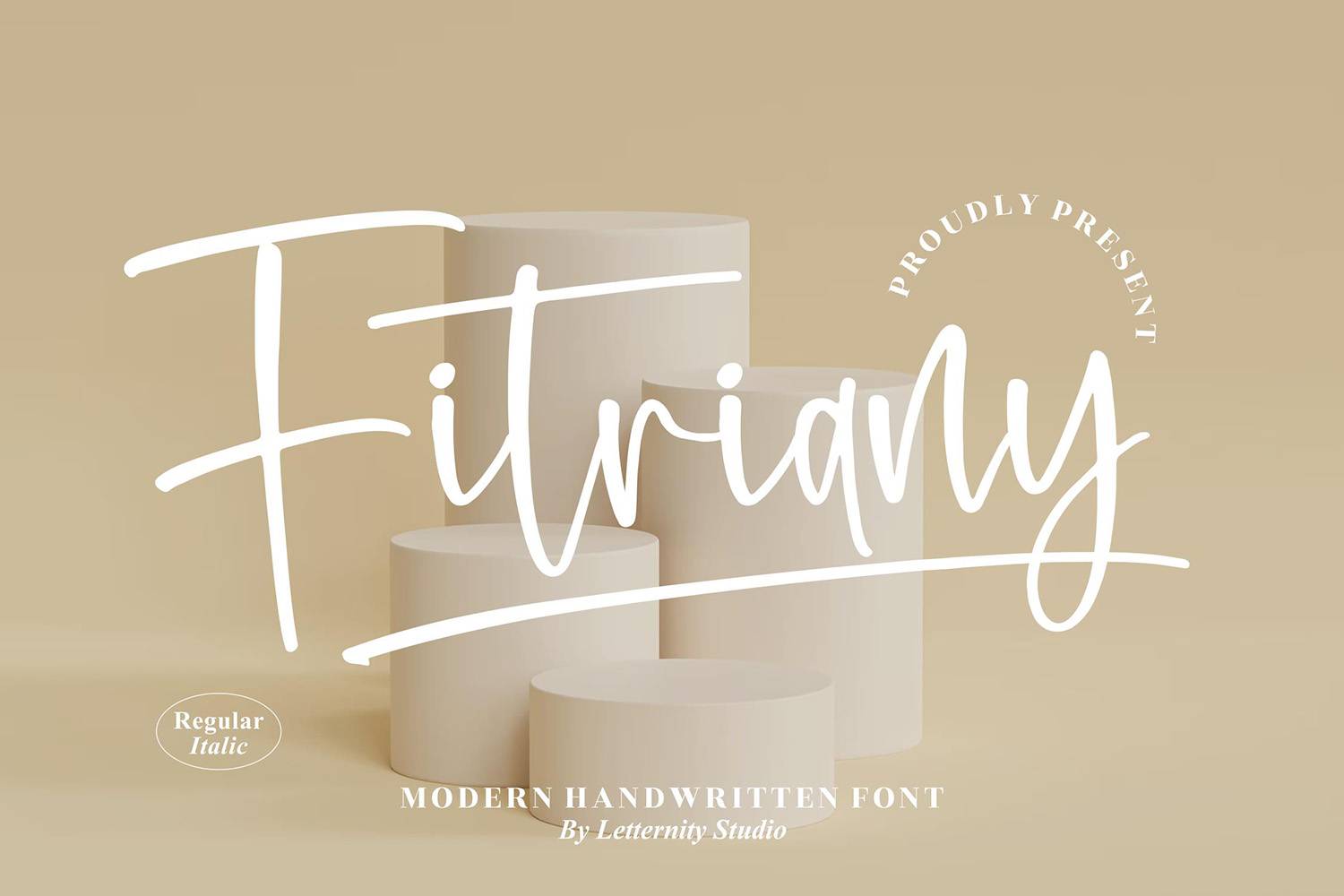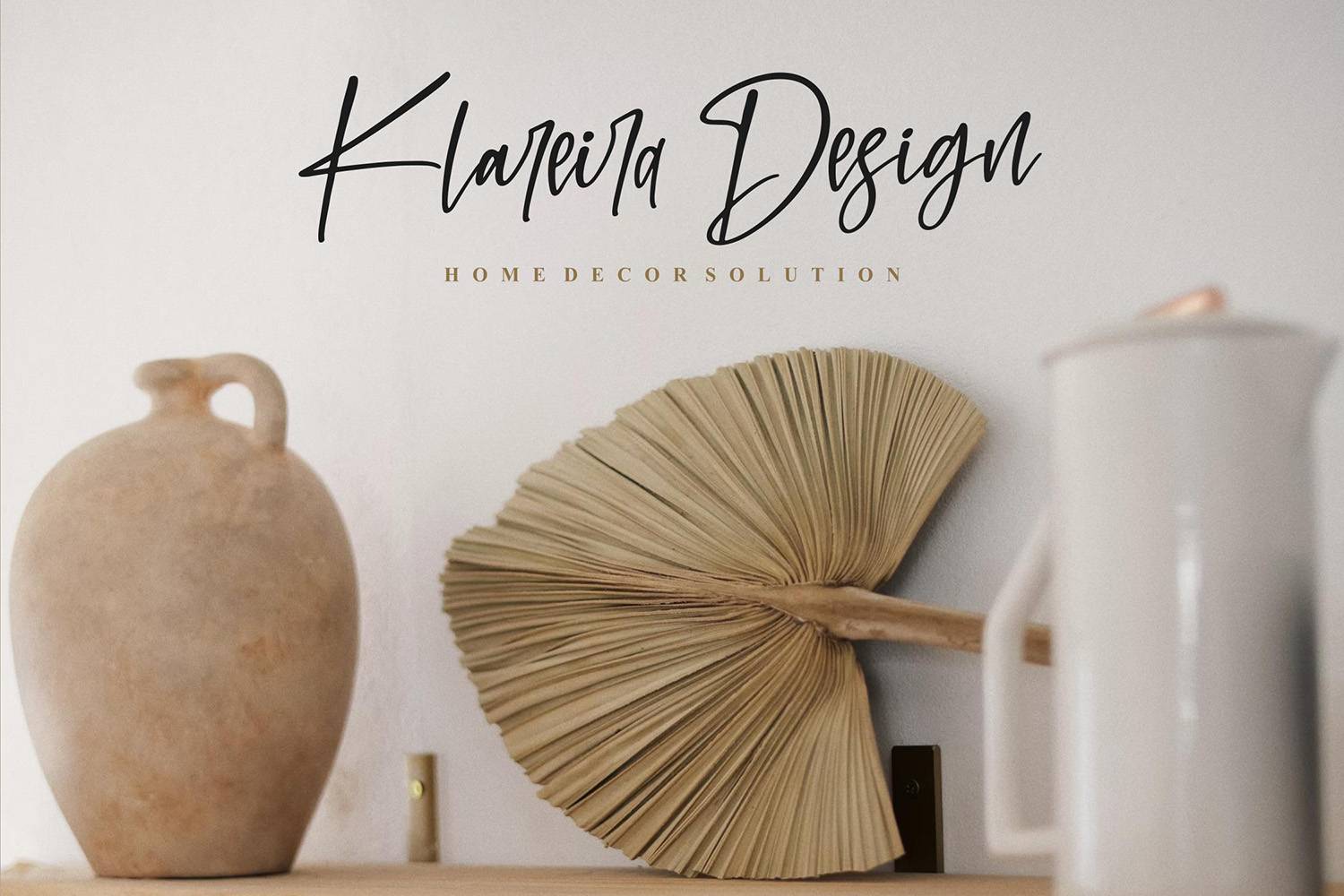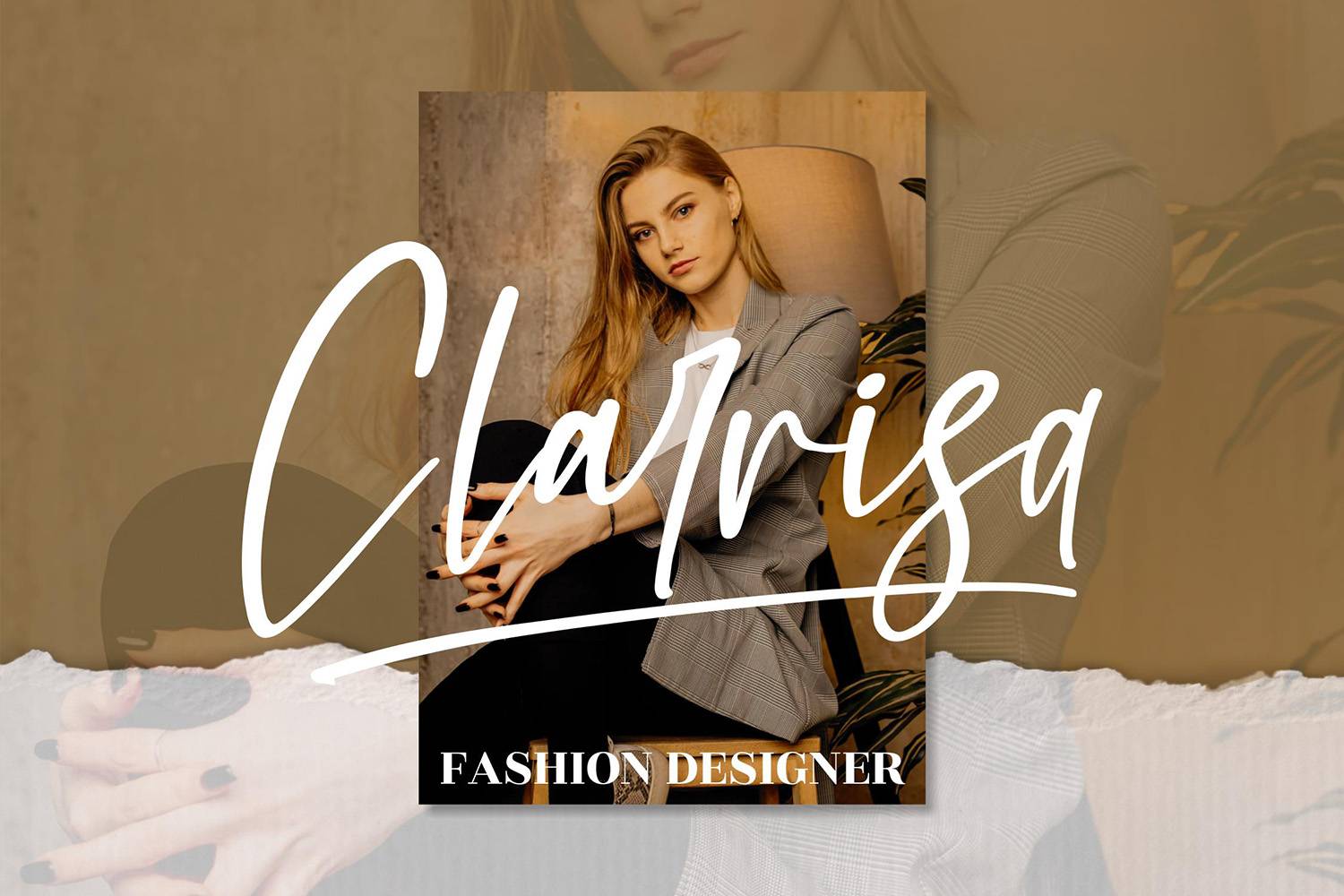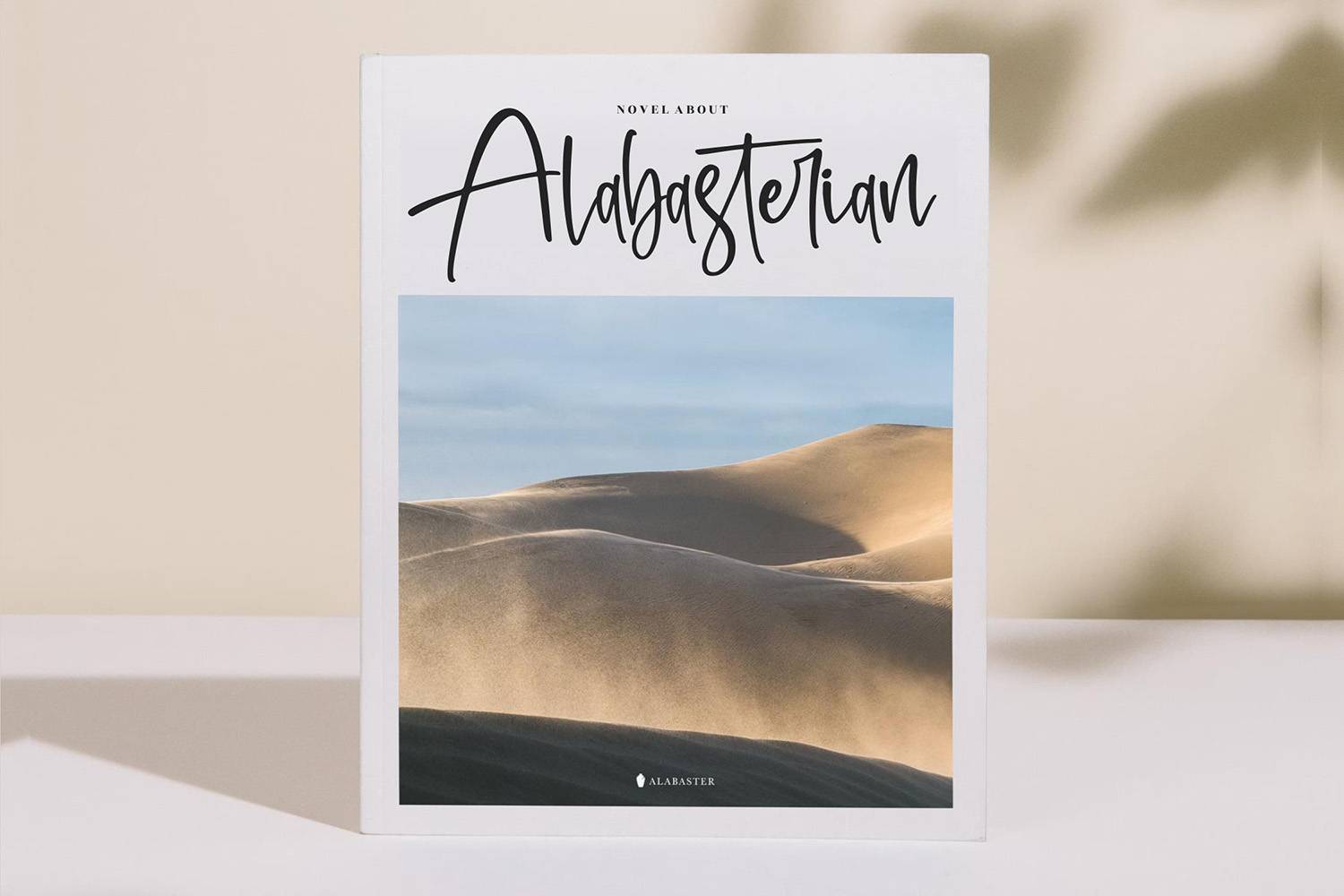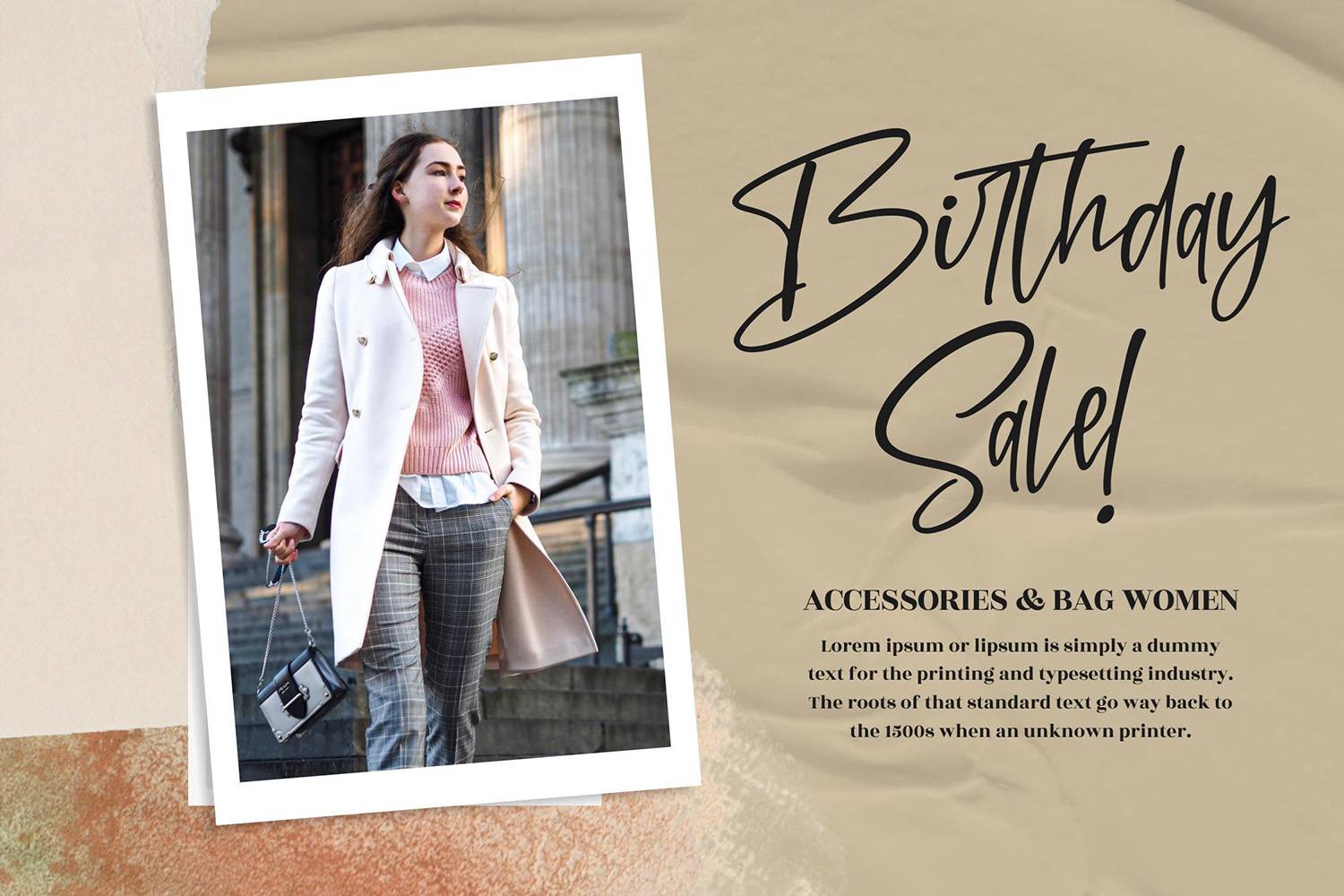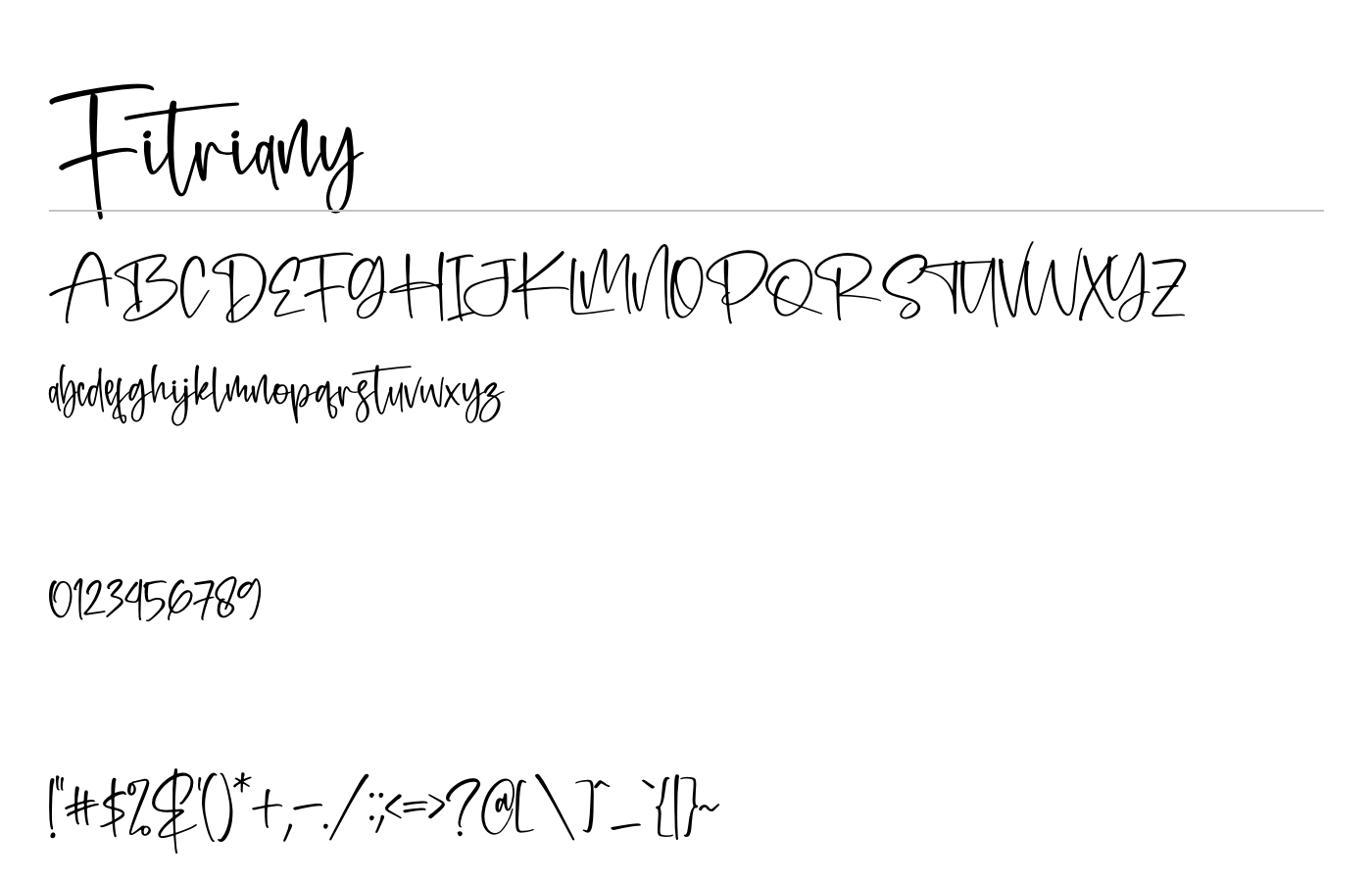
Fitriany is a playful, handwritten script font with a casual and airy feel, featuring tall, slender letterforms and smooth, flowing strokes. Its light weight and irregular baseline give it a friendly and personal touch, making it ideal for creative branding, invitations, and social media designs that want to convey approachability and warmth. This font shines best in headlines and logos where a unique, handcrafted aesthetic is desired.
Fitriany Font
About Fitriany Font